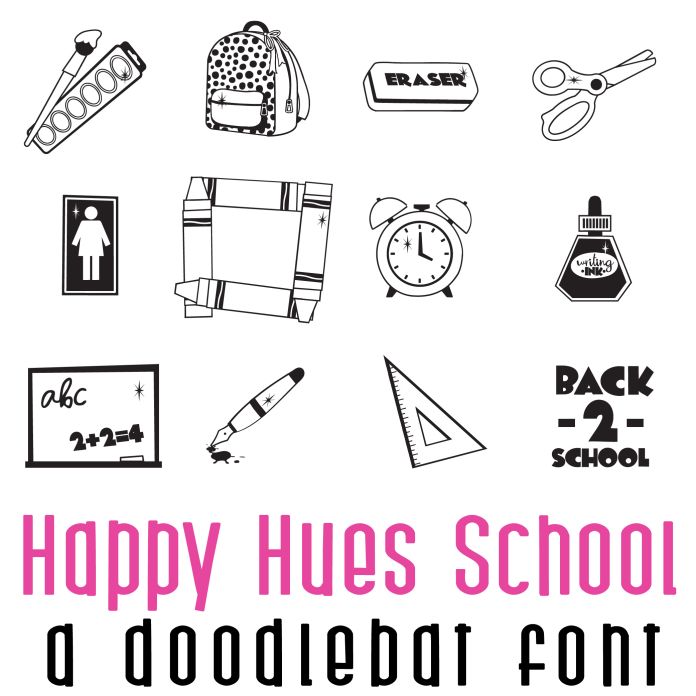
Happy Hues School Doodlebat Font is a playful and whimsical design featuring 26 cheerful school designs and supplies. Perfect for adding a fun and vibrant touch to invitations, posters, and other creative projects. This font is sure to bring a smile to anyone's face with its colorful and energetic style.